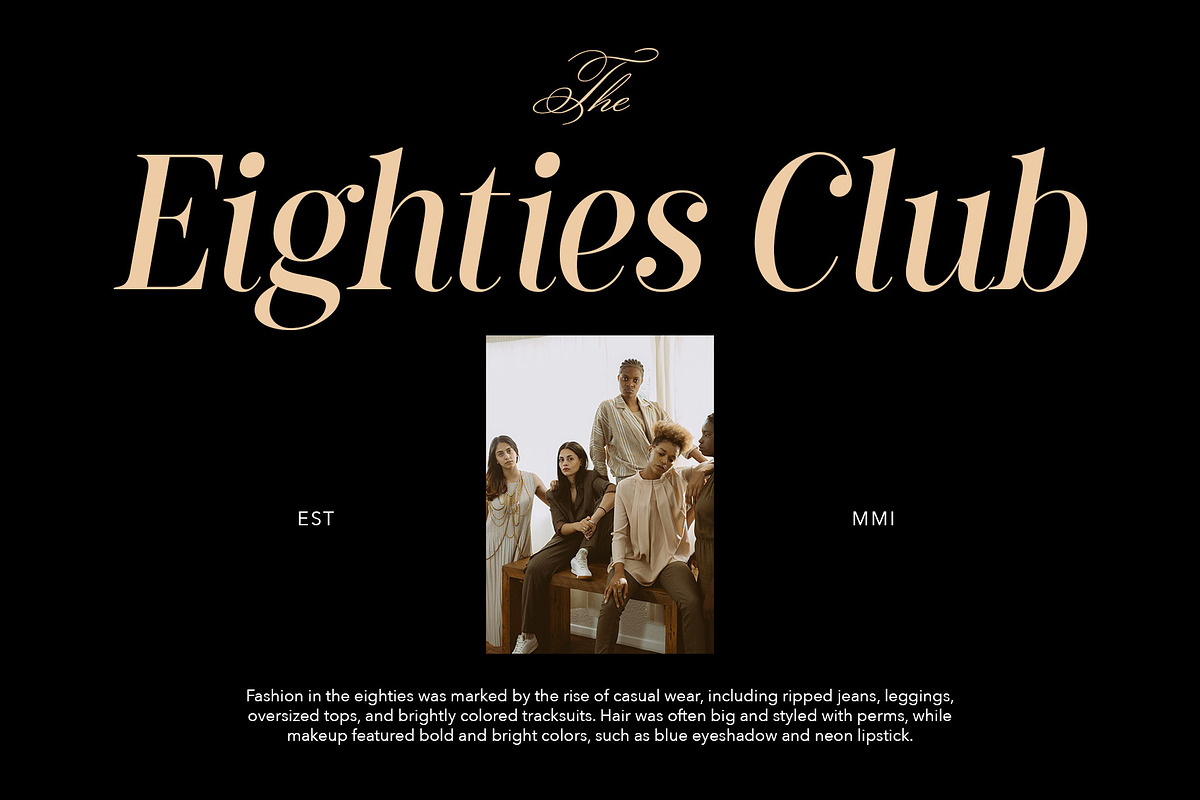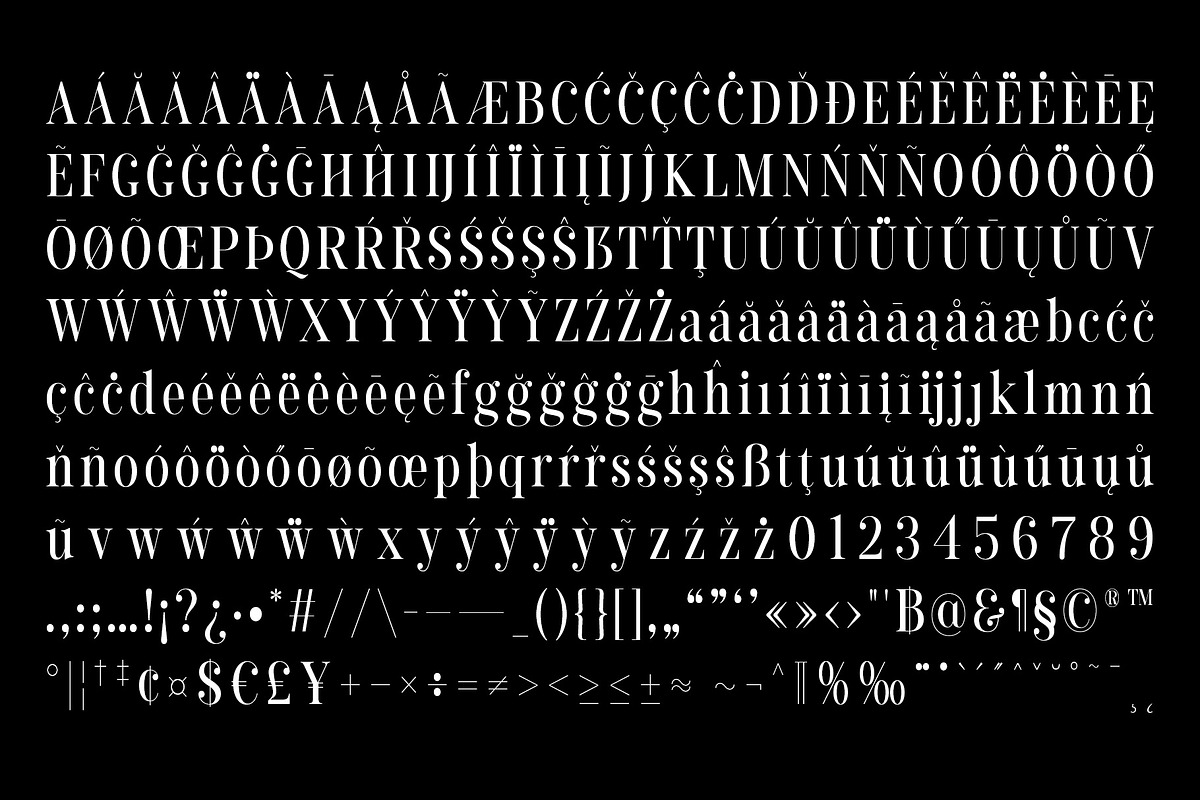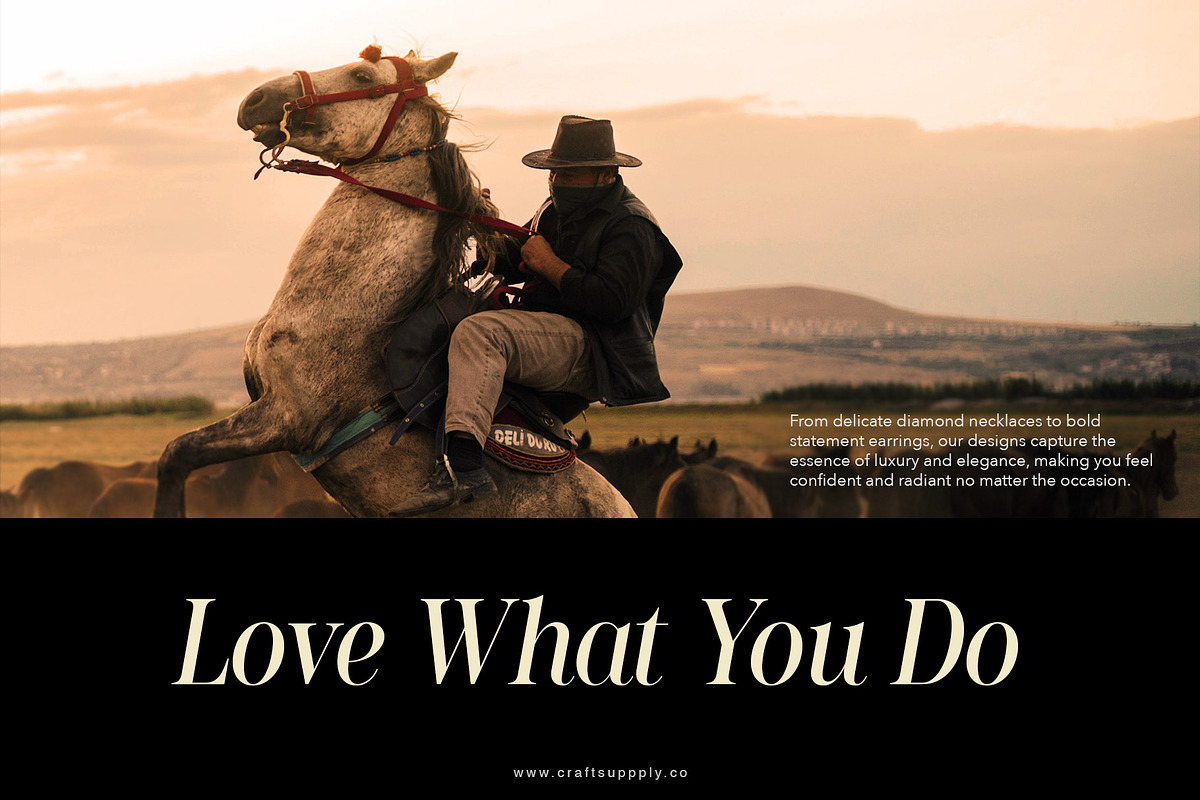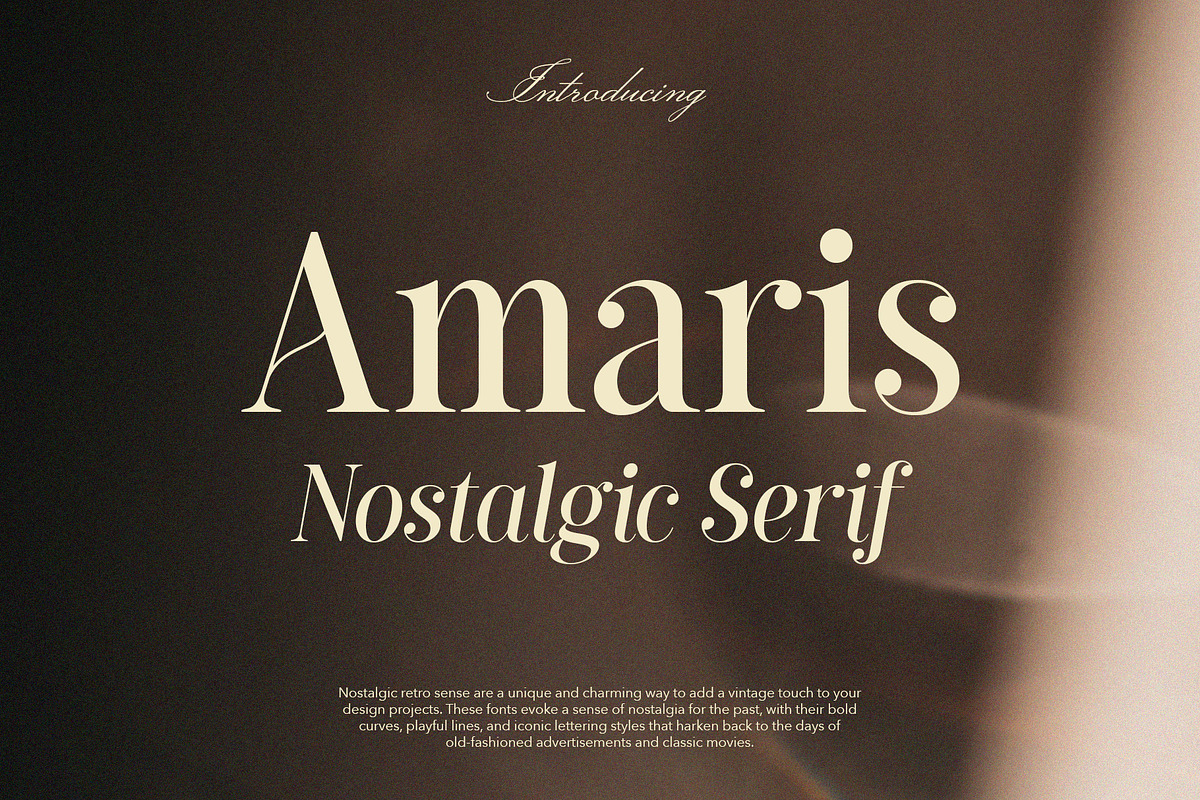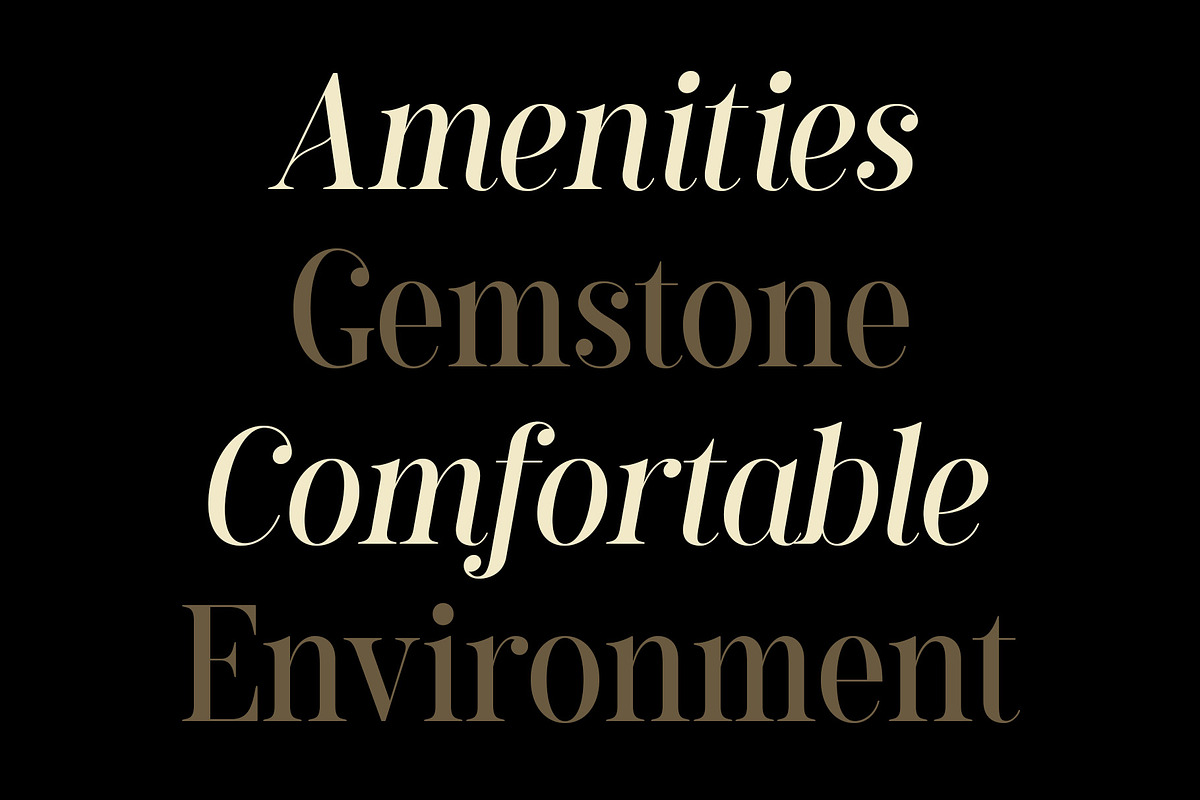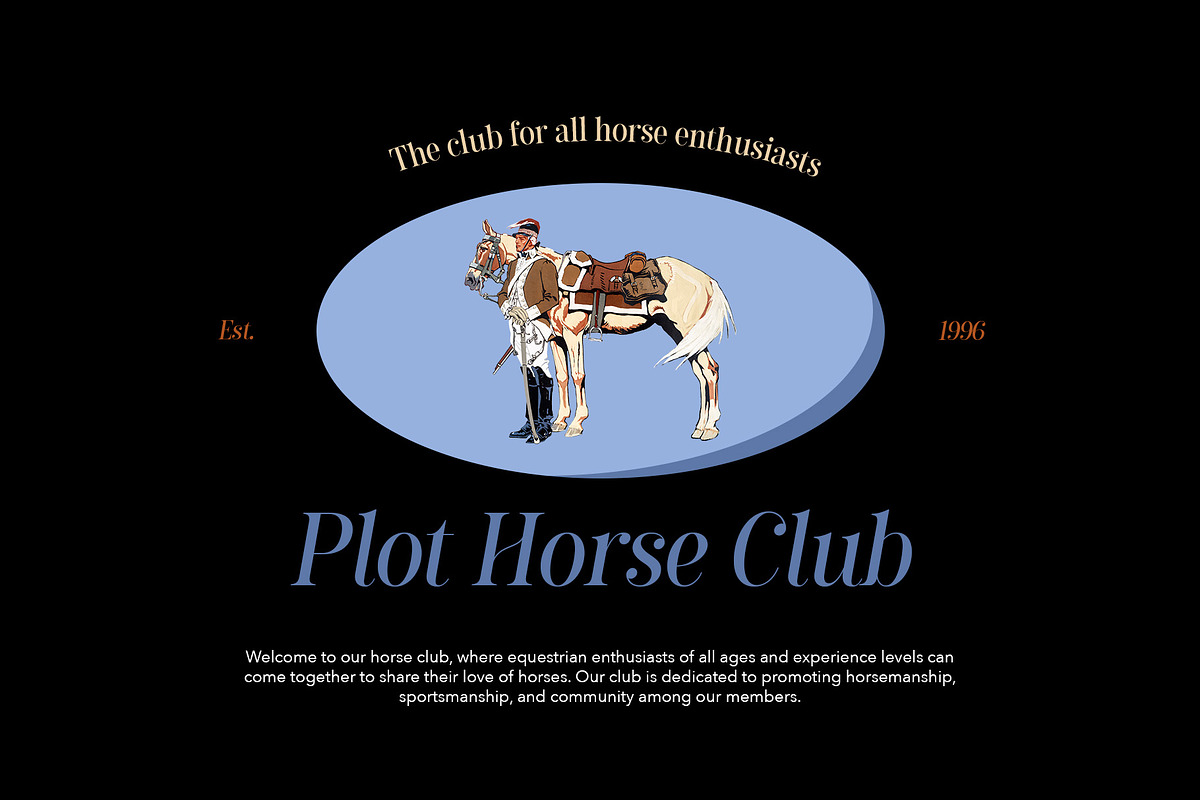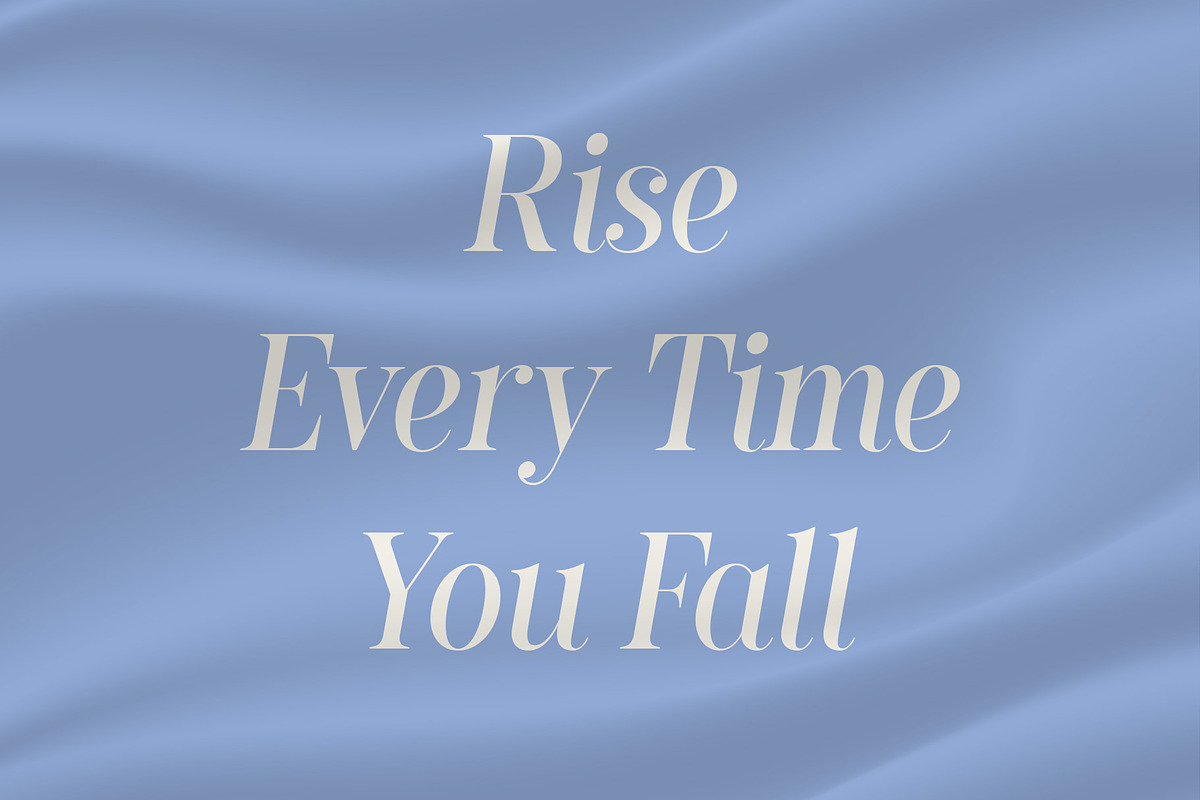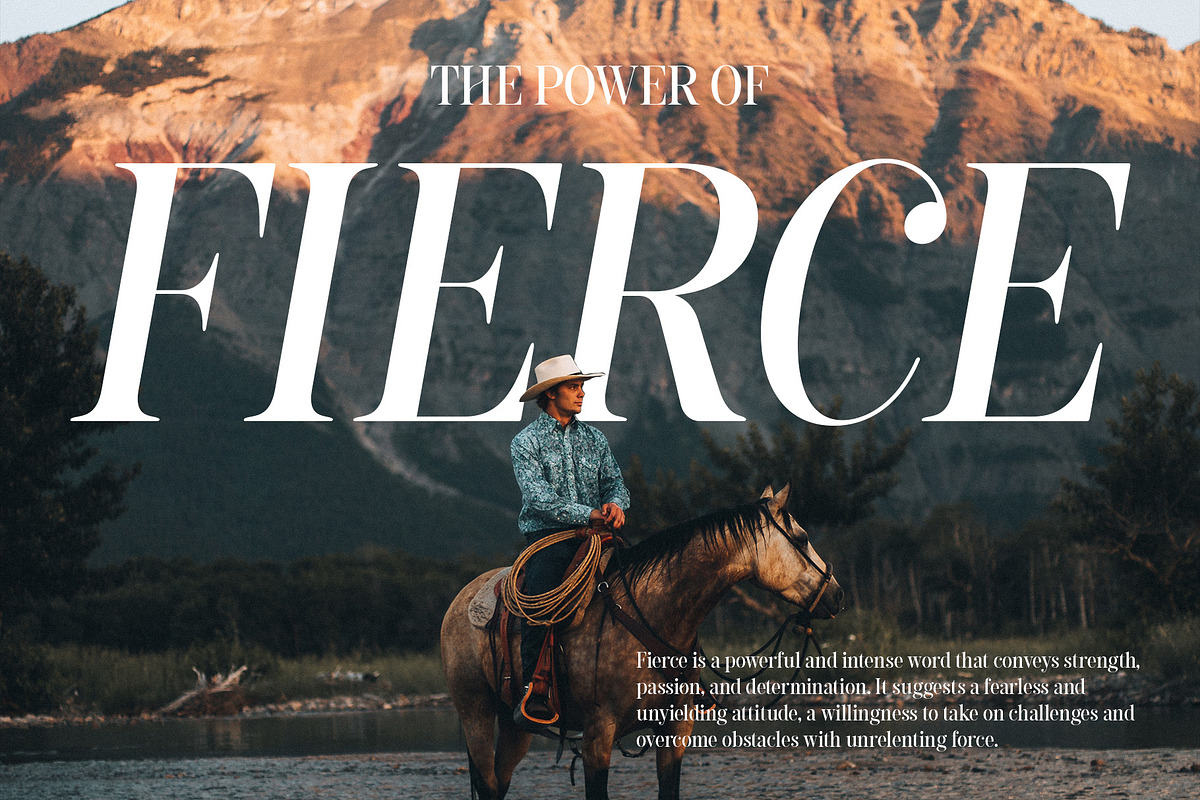
Amaris - Nostalgic Serif
Amaris is a nostalgic serif fonts features high contrast between thick and thin strokes, and traditional letterforms. They evoke elegance, sophistication, and tradition. Ideal for formal designs and branding.
You want to make a greeting card or a package design, or even a brand identity, craft design, any DIY project, book title, poster, pop vintage design, retro design or any purpose to make your art/design project look pretty and trendy? Feel free to play with this typeface!
- Amaris Regular
- Amaris Italic